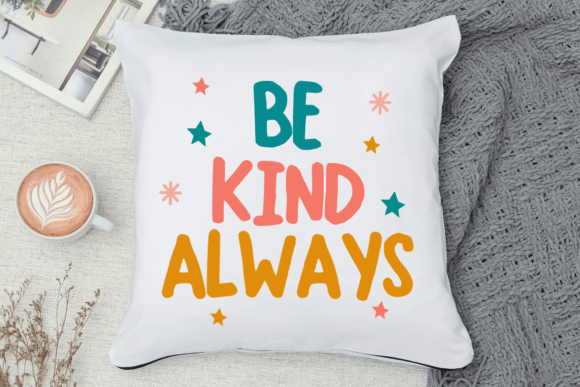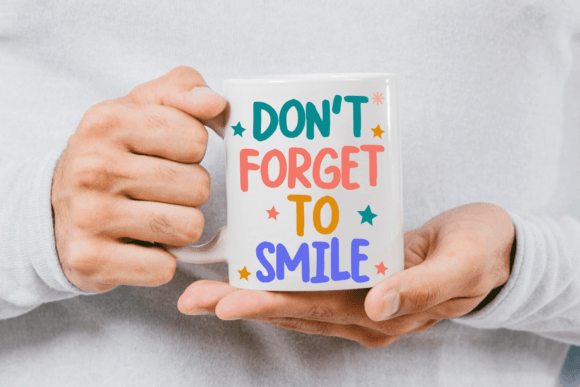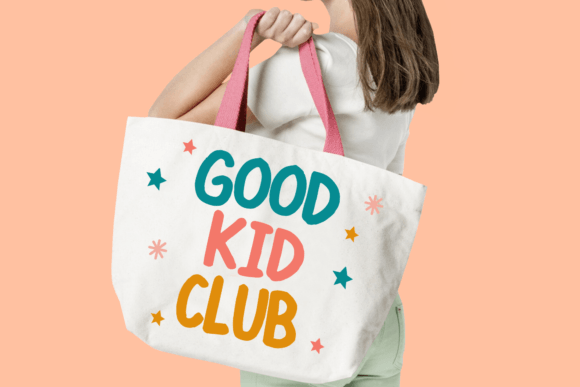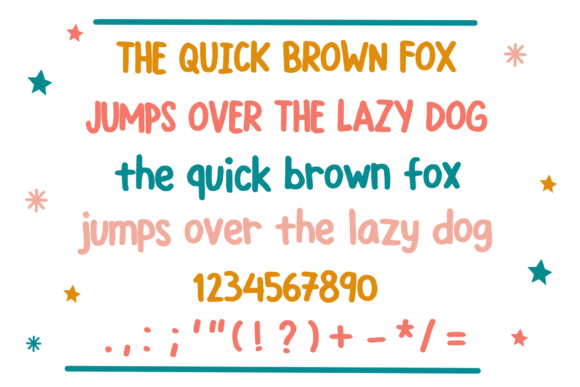
Unleash Your Creativity with Good Kid Comic Font
Are you a designer, crafter, or DIY enthusiast looking for a playful and fun font to elevate your projects? Look no further than the Good Kid Comic Font! This delightful comic font is perfect for adding a super cool touch to a wide range of design projects, from stickers and t-shirt designs to logo creations, magazine covers, and more.
What is Good Kid Comic Font?
Good Kid Comic Font is a carefully crafted typeface designed to bring a sense of playfulness and fun to your designs. Its comic-inspired style makes it ideal for projects that require a lighthearted and humorous tone. Whether you’re creating content for kids or adults, this font is sure to bring a smile to their faces.
The versatility of Good Kid Comic Font is one of its standout features. You can use it for a multitude of design ideas, including:
- Stickers: Create eye-catching stickers for kids’ parties, events, or product promotions.
- T-shirt Designs: Add a fun and playful touch to your apparel designs, making them perfect for casual wear or as a unique gift.
- Logo Designs: Craft memorable logos for businesses, events, or products that require a friendly and approachable feel.
- Magazine or Book Covers: Use Good Kid Comic Font to create engaging and attention-grabbing covers for children’s books, comics, or magazines.
- Comics and Cartoon Drawings: Bring your comic characters to life with a font that perfectly complements their playful and adventurous spirit.
- Daily Typing: Add some fun to your digital communication, such as social media posts, emails, or blog articles.
Why Choose Good Kid Comic Font?
So, what makes Good Kid Comic Font a top choice for designers and crafters? Here are just a few reasons:
- Playful and Fun: This font is designed to bring a sense of joy and playfulness to your designs, making it perfect for projects that require a lighthearted tone.
- High-Quality Design: Good Kid Comic Font is crafted with attention to detail, ensuring that it looks great in various sizes and resolutions.
- Versatile: As mentioned earlier, Good Kid Comic Font can be used for a wide range of design projects, making it a valuable addition to your font library.
Tips for Using Good Kid Comic Font
To get the most out of Good Kid Comic Font, here are some tips to keep in mind:
- Experiment with Colors: This font looks great in bright, bold colors, so don’t be afraid to get creative with your color palette.
- Mix and Match: Combine Good Kid Comic Font with other fonts to create a unique and visually appealing design.
- Keep it Simple: Don’t overcomplicate your design – sometimes, simplicity is the best way to let the font shine.
Good Kid Comic Font is a fantastic addition to any designer’s or crafter’s toolkit. Its playful and fun style makes it perfect for a wide range of projects, from stickers and t-shirt designs to logo creations and magazine covers. With its high-quality design, ease of use, and versatility, this font is sure to elevate your designs to the highest level. So why wait? Download Good Kid Comic Font today and start adding a super cool touch to your creations!